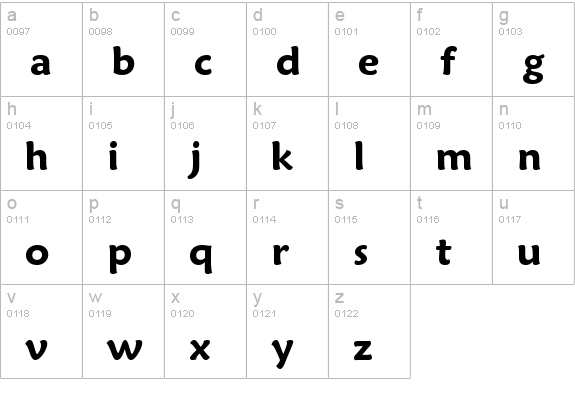
Maiandra Demi Bold GD is a sub-bold, structured variant in the Maiandra typeface family \xE2\x80\x94 well suited to sub-headlines and emphasised passages.
Introducing the remarkable Maiandra Demi Bold GD font, a true masterpiece in the world of typography. This stunning font possesses a unique blend of elegance and modernity, making it the perfect choice for any design project that requires sophistication and visual impact. The Maiandra Demi Bold GD font exudes a sense of confidence and power, with its bold and assertive strokes that command attention. Its refined curves and clean lines create a harmonious balance, capturing a sense of timeless beauty that is sure to captivate any audience. This font is not only visually striking but also incredibly versatile. It effortlessly adapts to various design styles, whether you are creating a logo, a poster, a headline, or even a magazine layout. Its boldness and clarity ensure that your message is conveyed with utmost impact and legibility. One of the most remarkable aspects of the Maiandra Demi Bold GD font is that it is freely available to download at FontsMarket.com. Yes, you heard it right! You can now access this incredible font without any cost, allowing you to elevate your designs without breaking the bank. Downloading the Maiandra Demi Bold GD font is a breeze, thanks to FontsMarket.com's user-friendly interface. With just a few clicks, you can add this font to your collection and unlock a whole new world of creative possibilities. Whether you are a professional designer or a hobbyist, this font is a must-have in your toolkit. So, don't miss out on the opportunity to enhance your designs with the striking beauty of the Maiandra Demi Bold GD font. Download it for free at FontsMarket.com and let your creativity soar to new heights. Experience the power and versatility of this font and bring your design visions to life like never before.